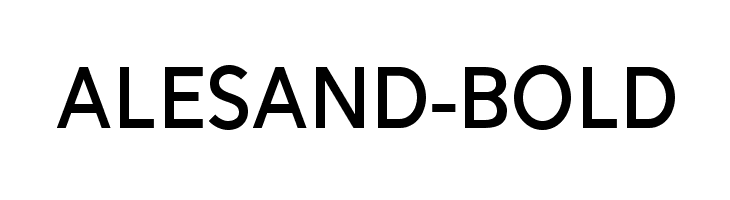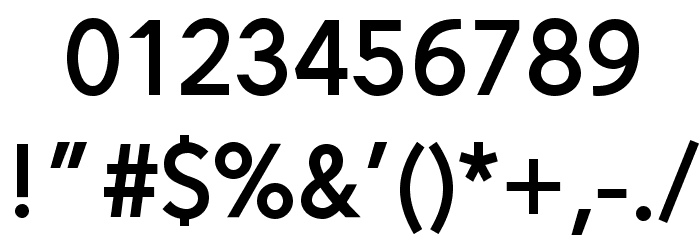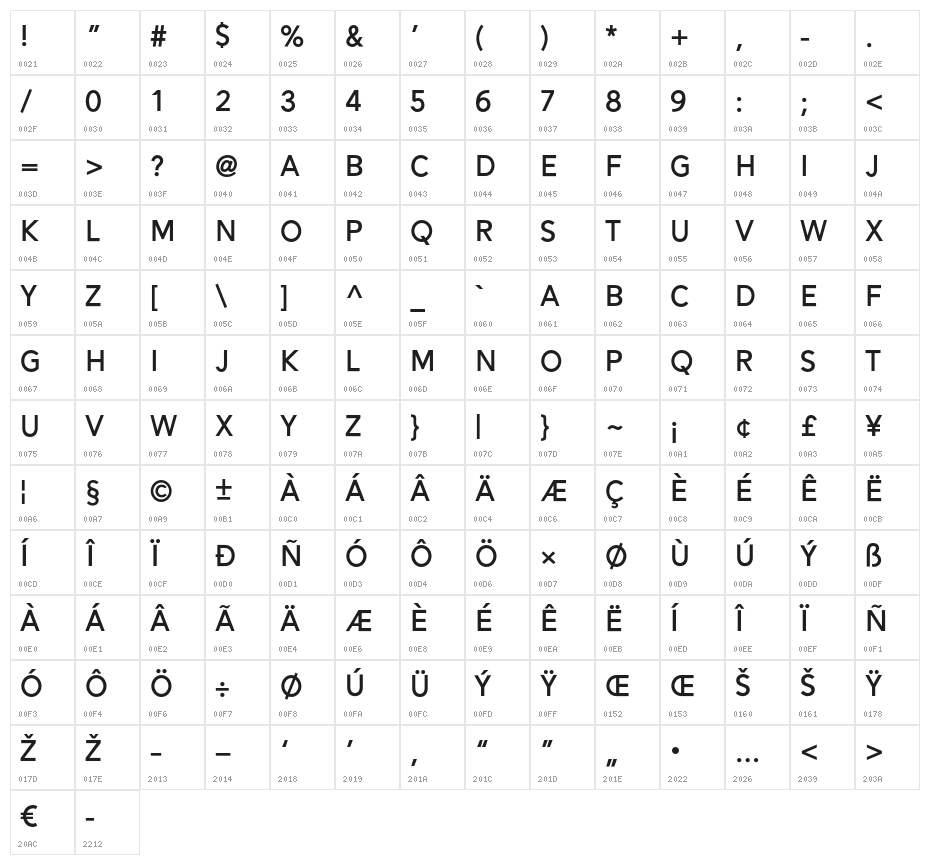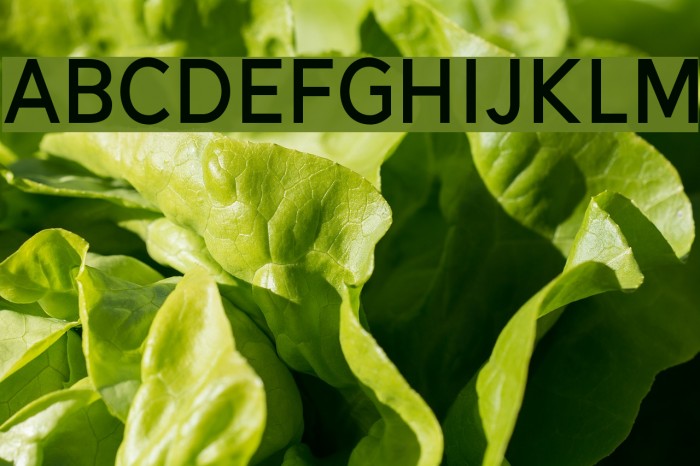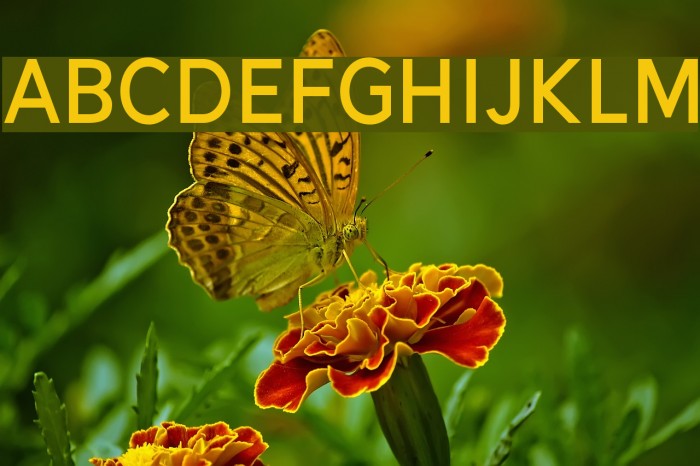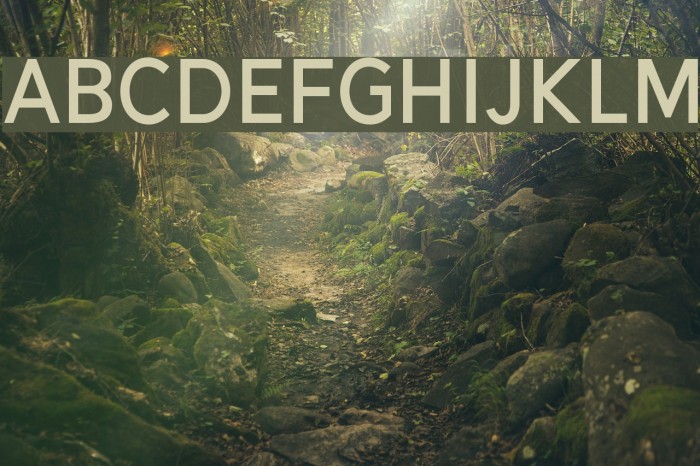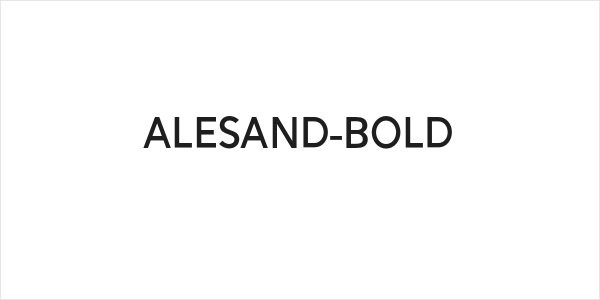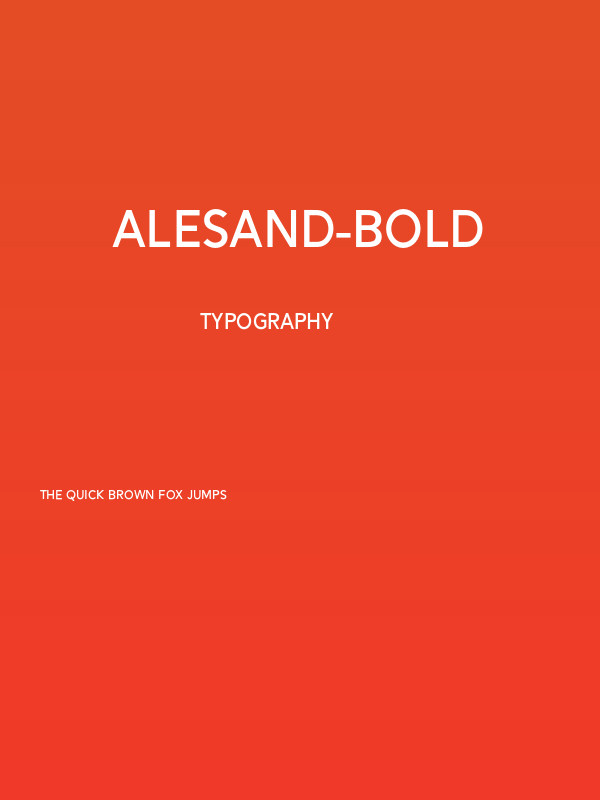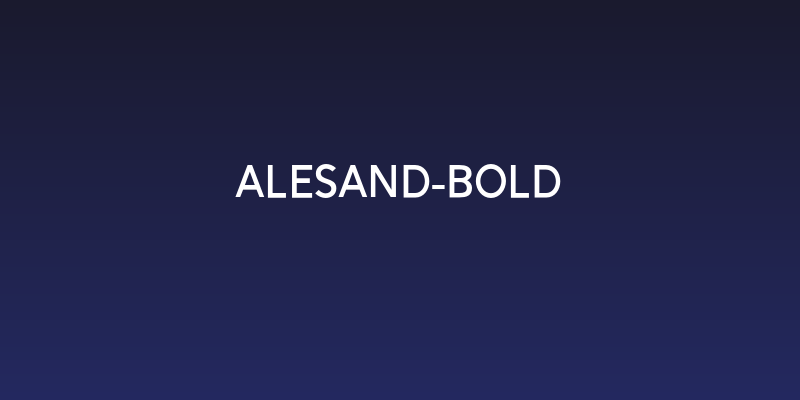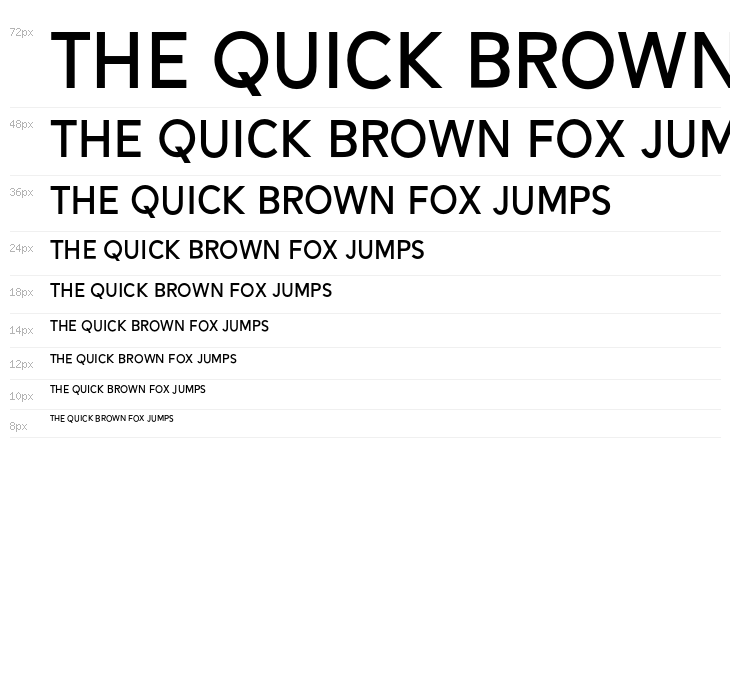
Alesand-Bold Font
Alesand-Bold Description
This font exhibits a clean and modern sans-serif style, characterized by its bold and uniform stroke weight. The characters are well-proportioned with a consistent height, providing a balanced and professional appearance. The uppercase and lowercase letters maintain a harmonious design, making it versatile for various applications. The numerals are clear and easily distinguishable, while the special characters are neatly integrated into the overall design. Its simplicity and clarity make it suitable for both digital and print media.
Use CaseHeadlines, Logos, Branding
Proposed ProjectsIdeal for branding, advertising, website headers, and editorial design.